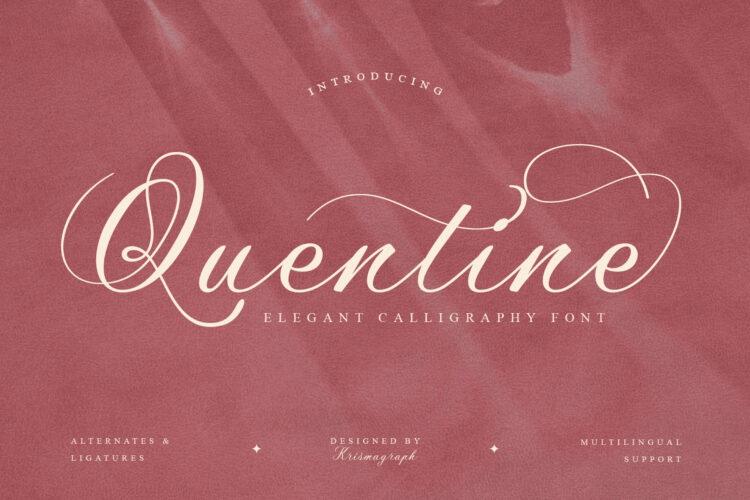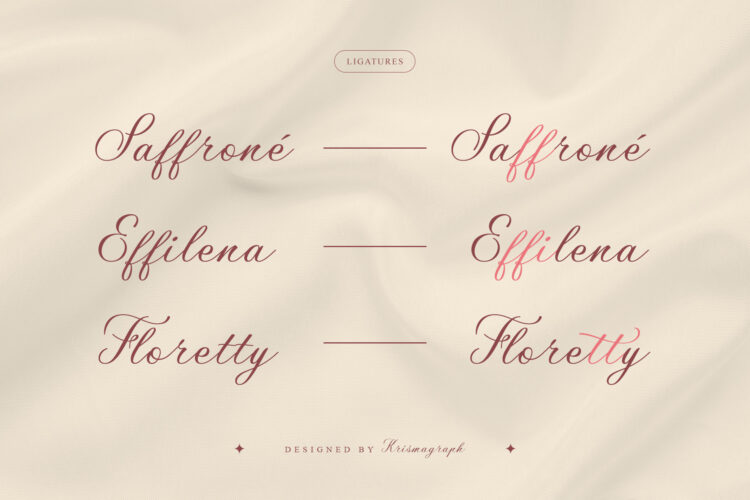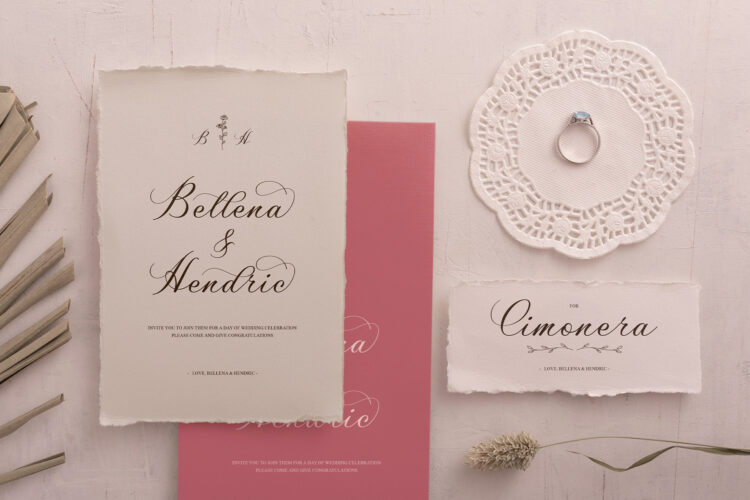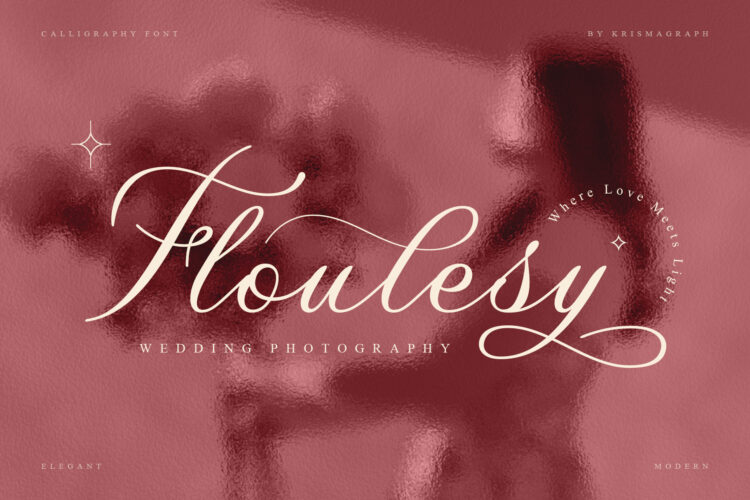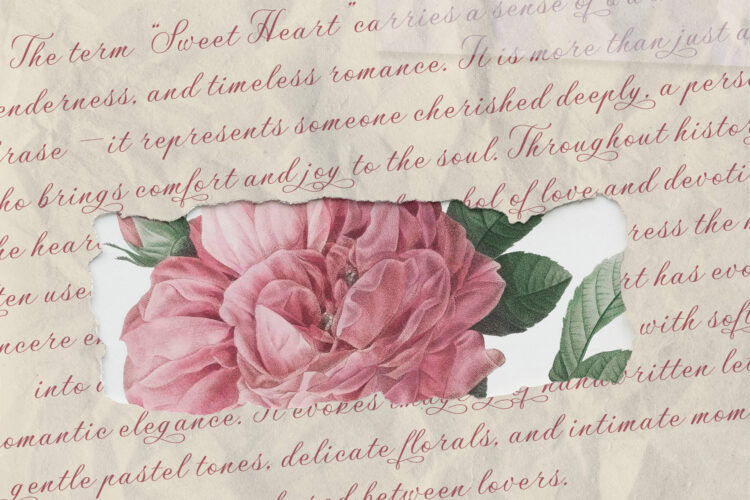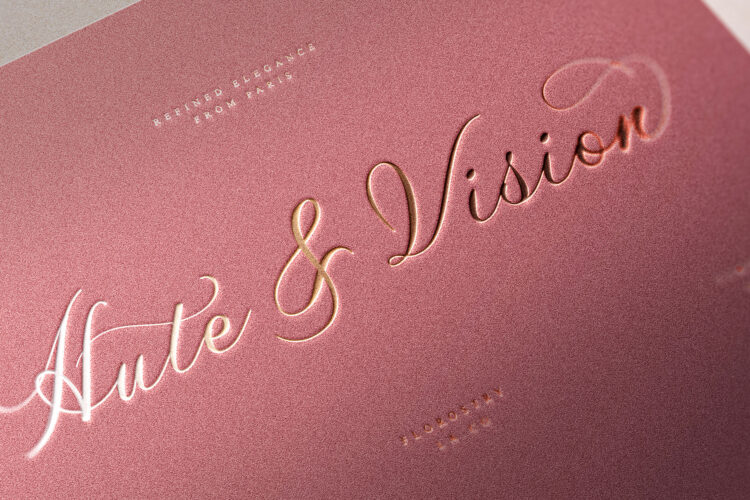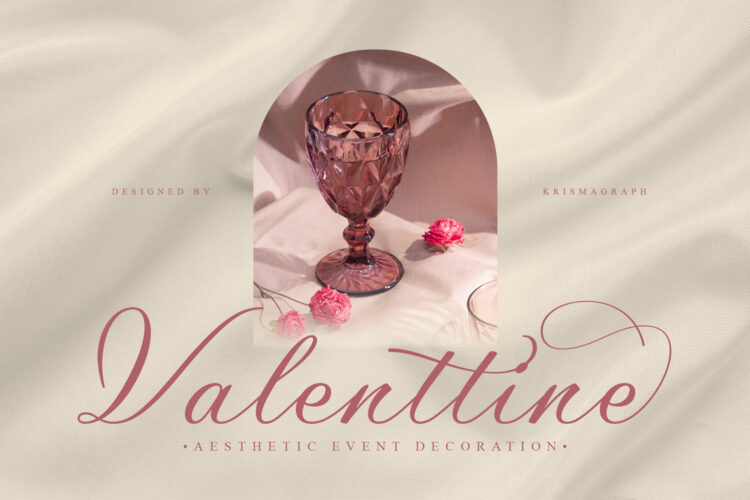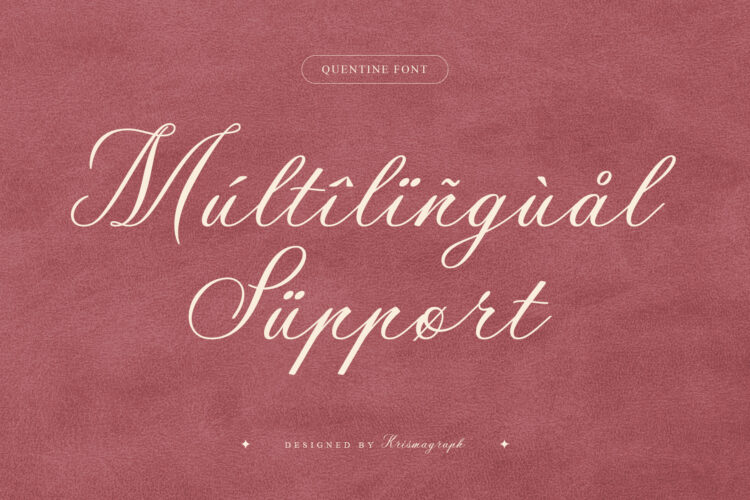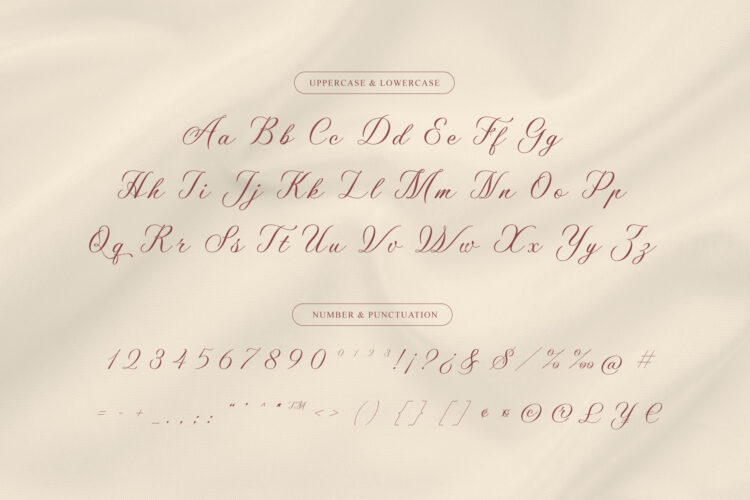
Quentine is an elegant calligraphy font that captures the grace of timeless handwriting. Designed with refined strokes and delicate swashes, this typeface exudes romance, sophistication, and charm — perfect for wedding stationery, invitations, editorial headlines, and luxury branding projects. Its smooth curves and exquisite ligatures create a harmonious balance between beauty and readability.
With alternates & ligatures and full multilingual support, Quentine offers the creative freedom to craft your own distinctive and elegant typographic compositions.
– Numbers, fractions
– Alternates
– Ligatures
– Multilingual support
Quentine – Elegant Calligraphy Font